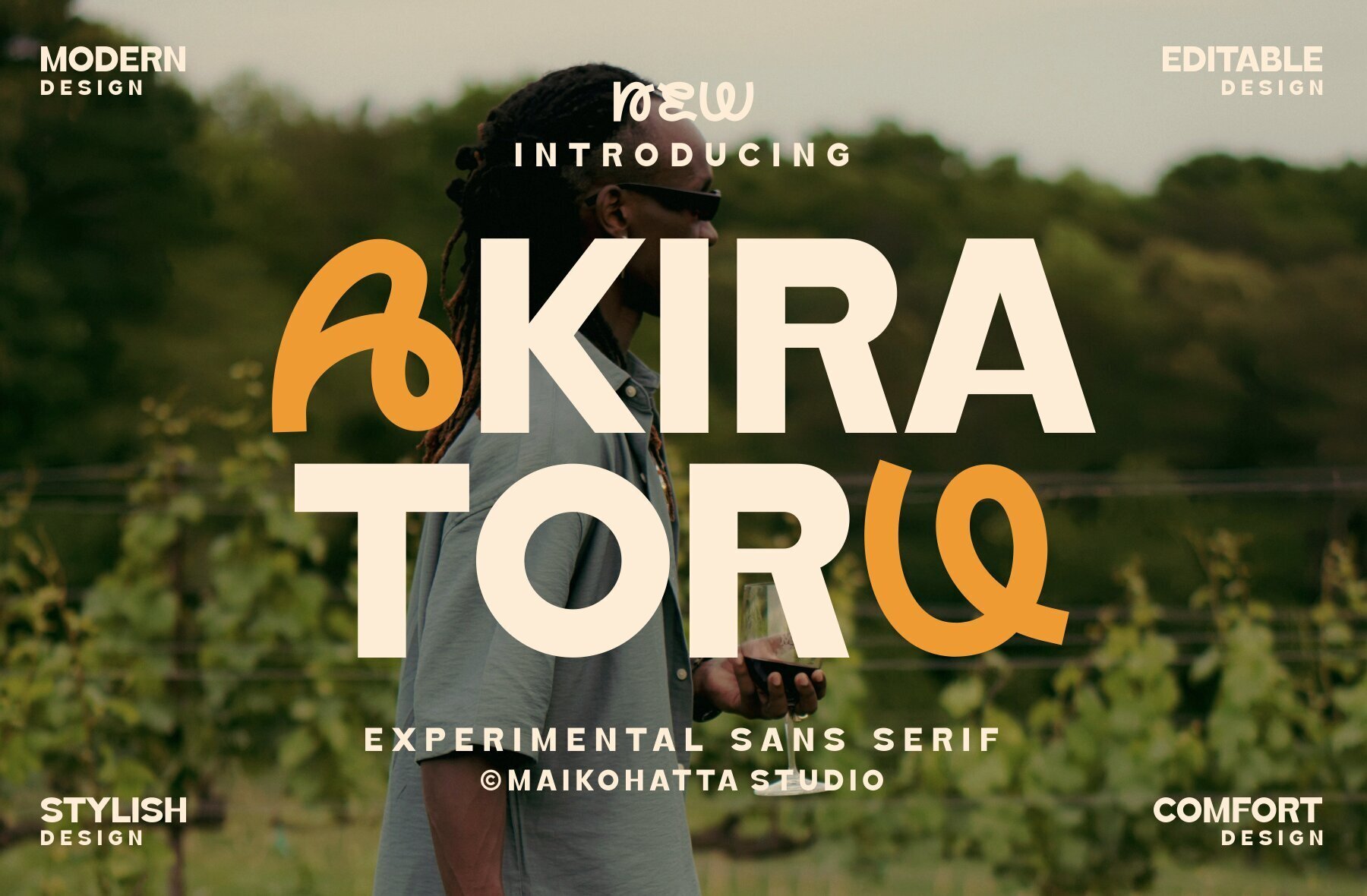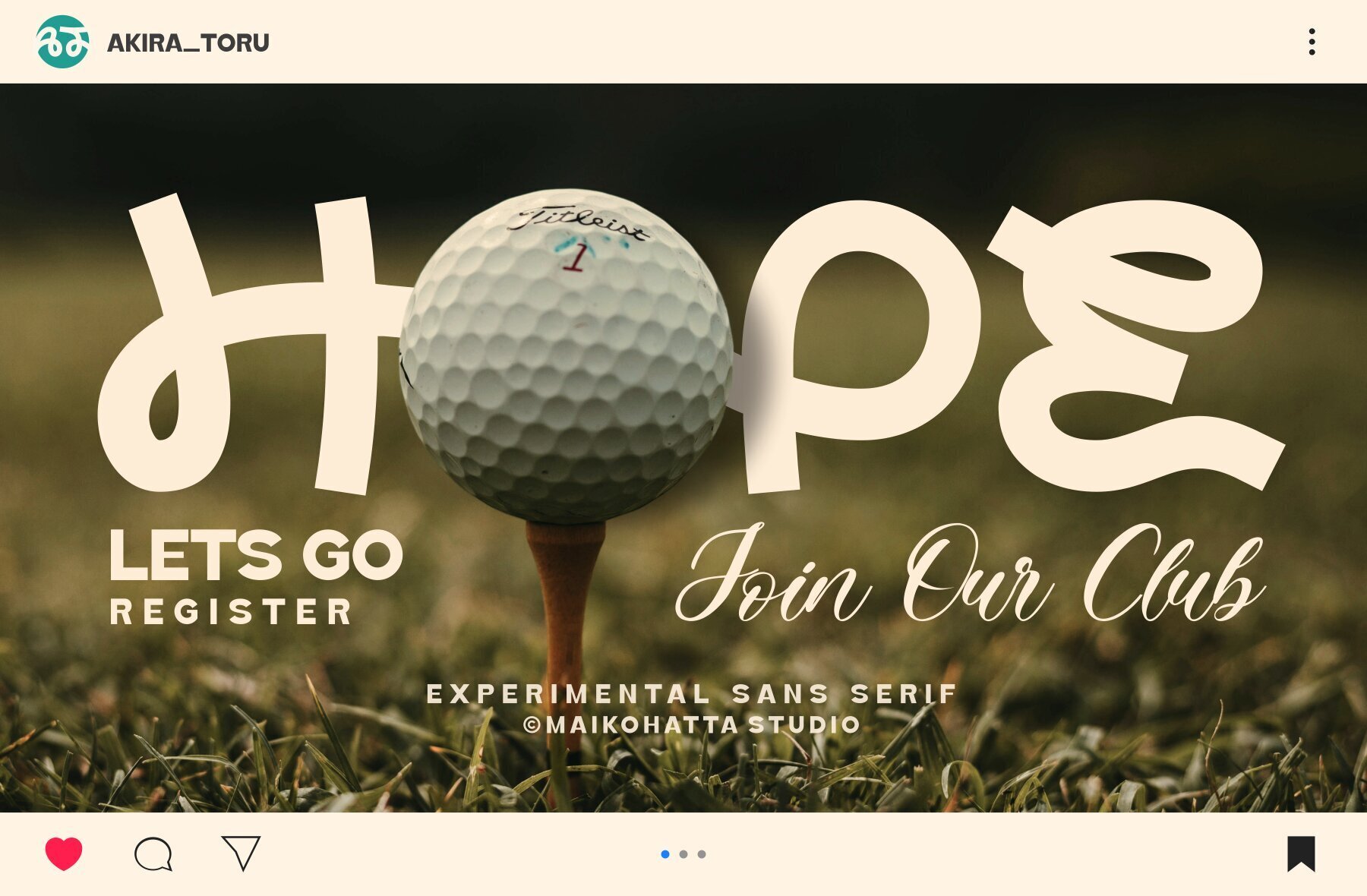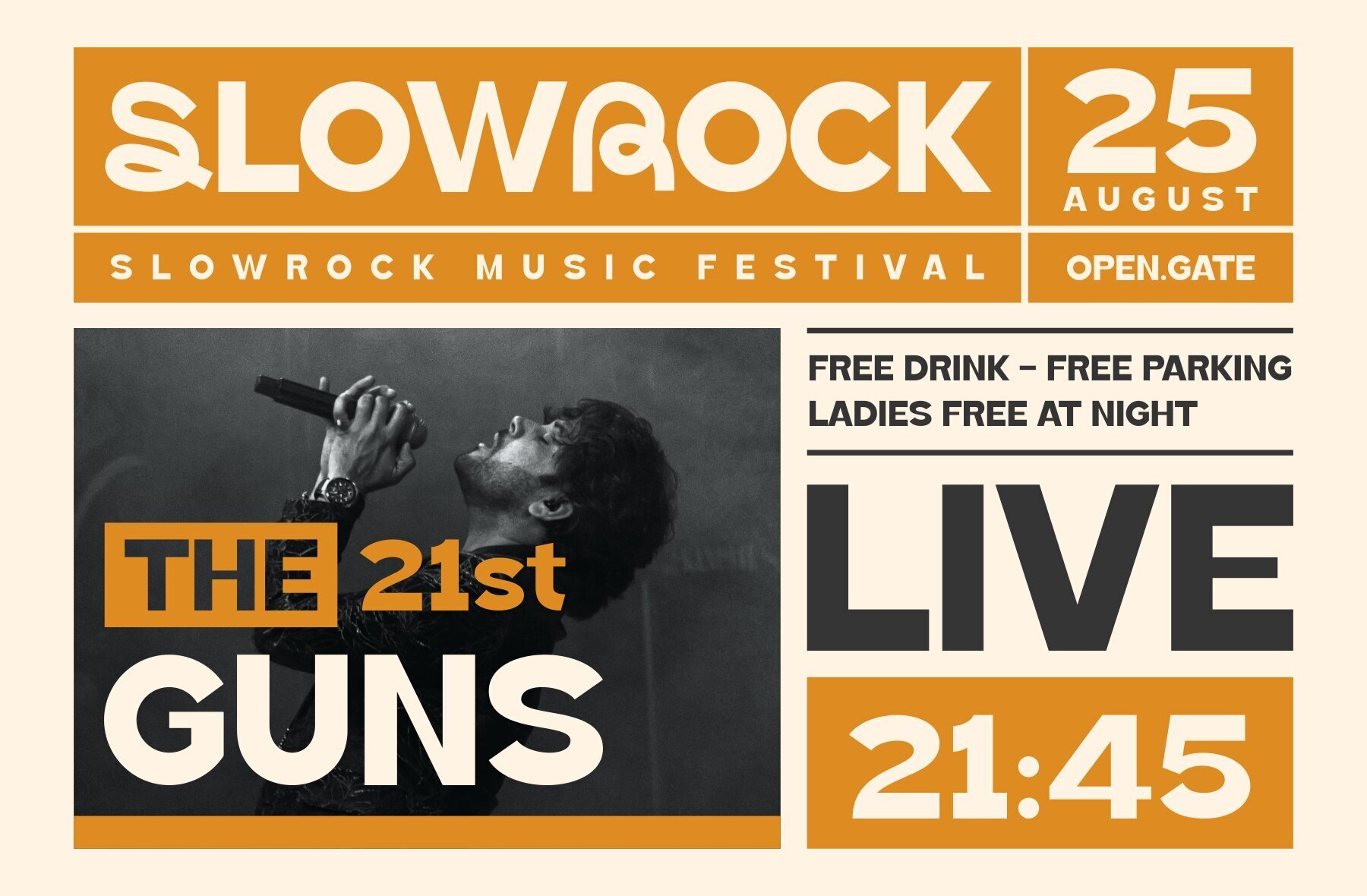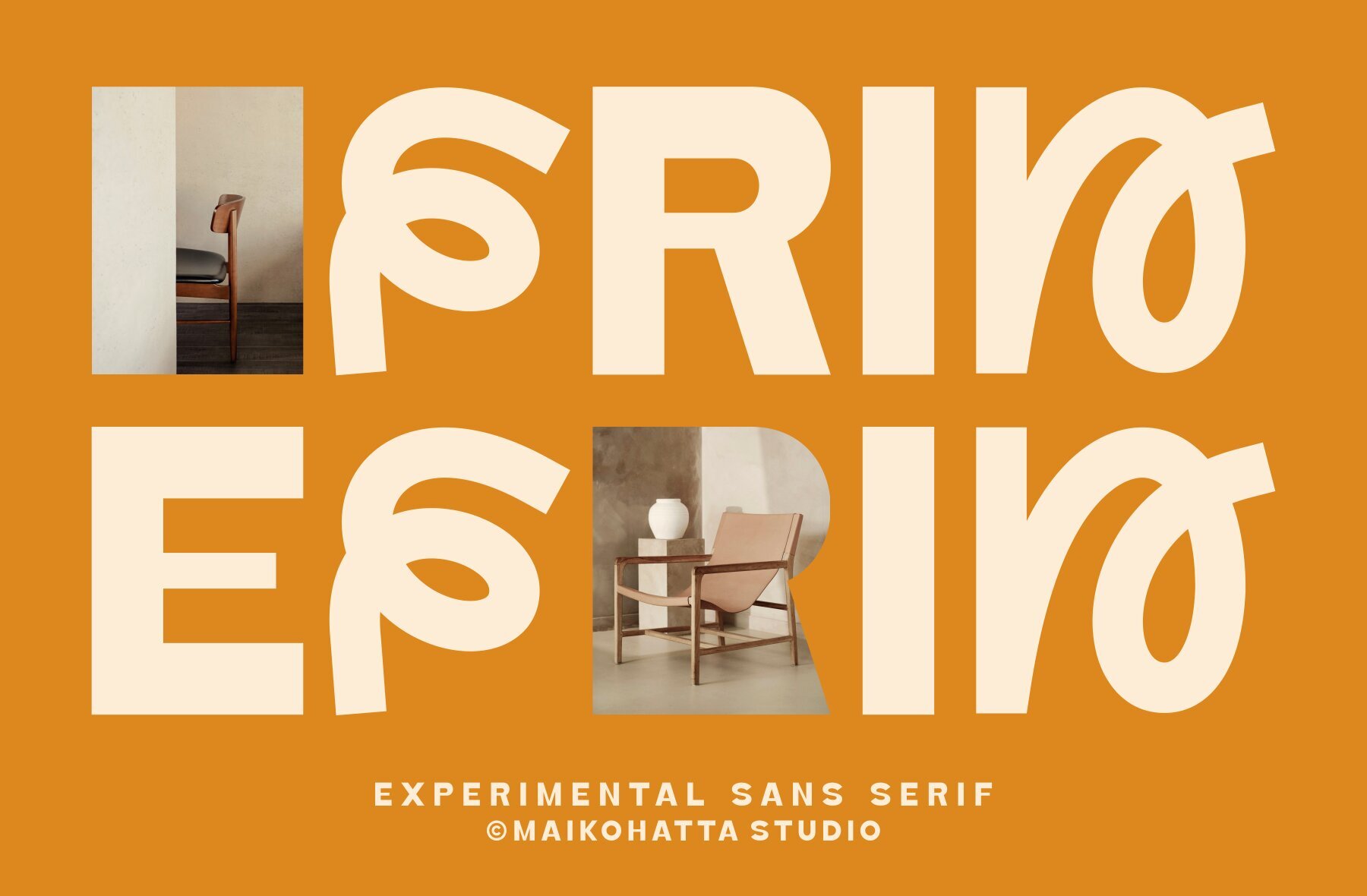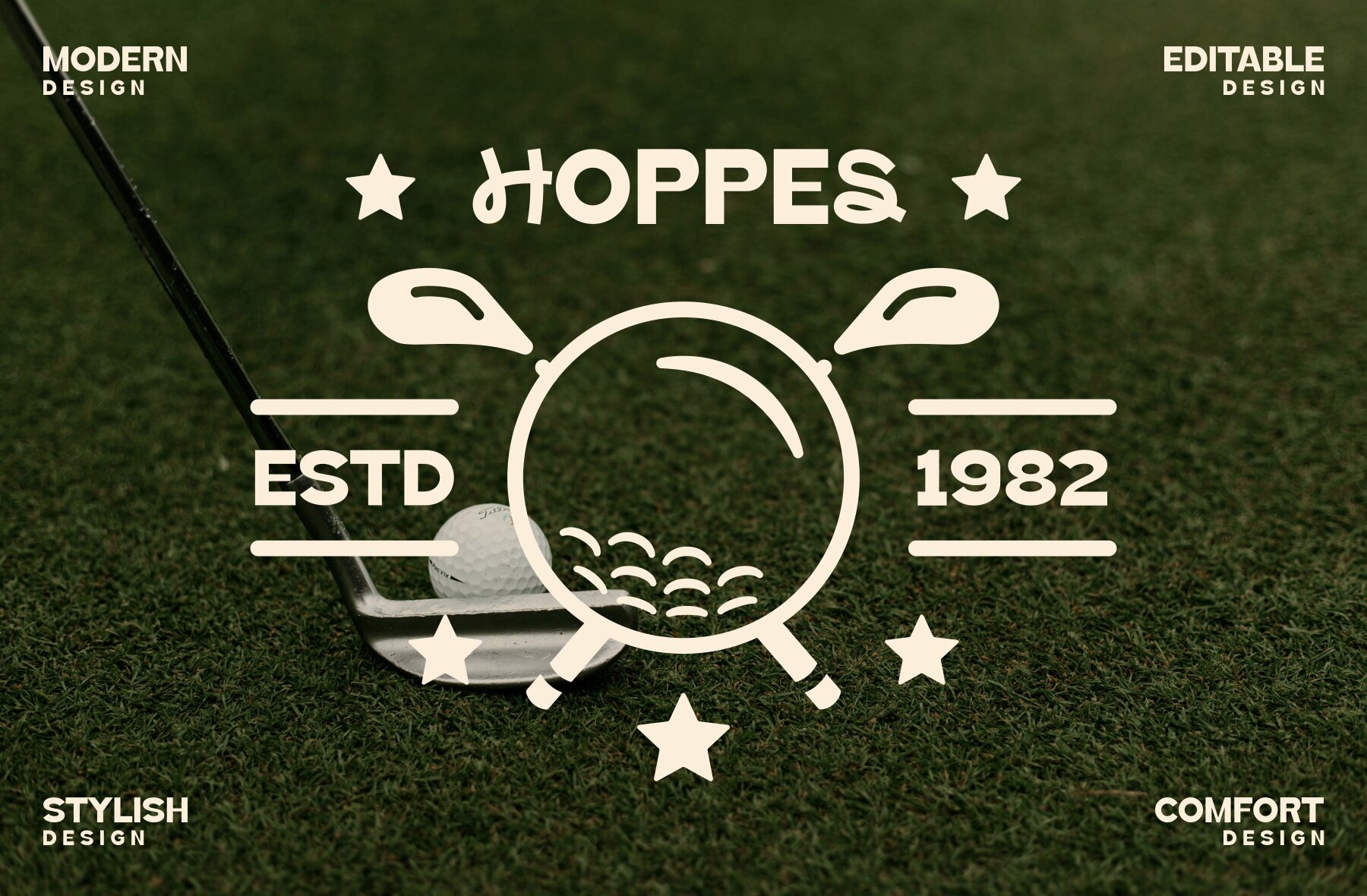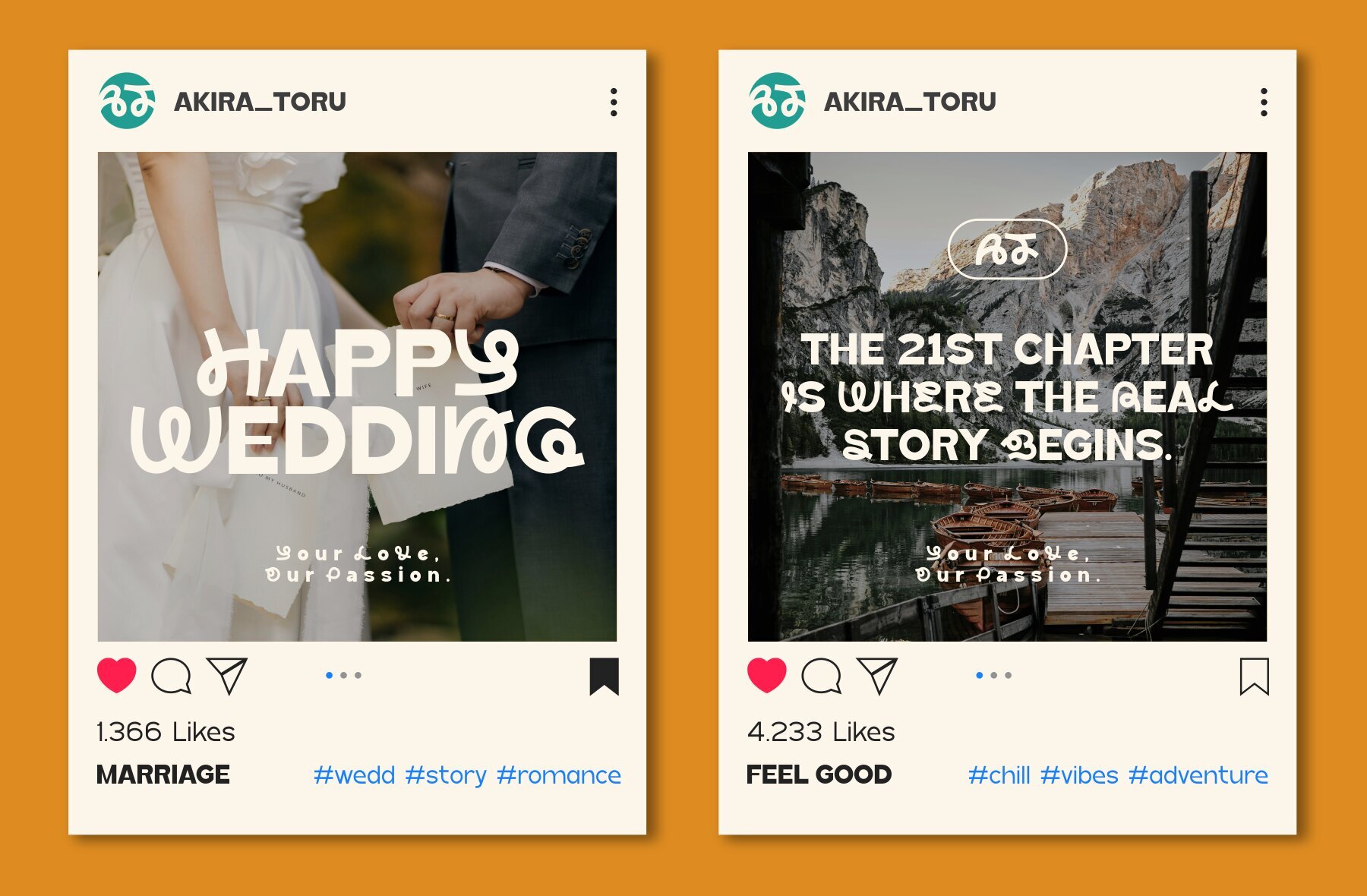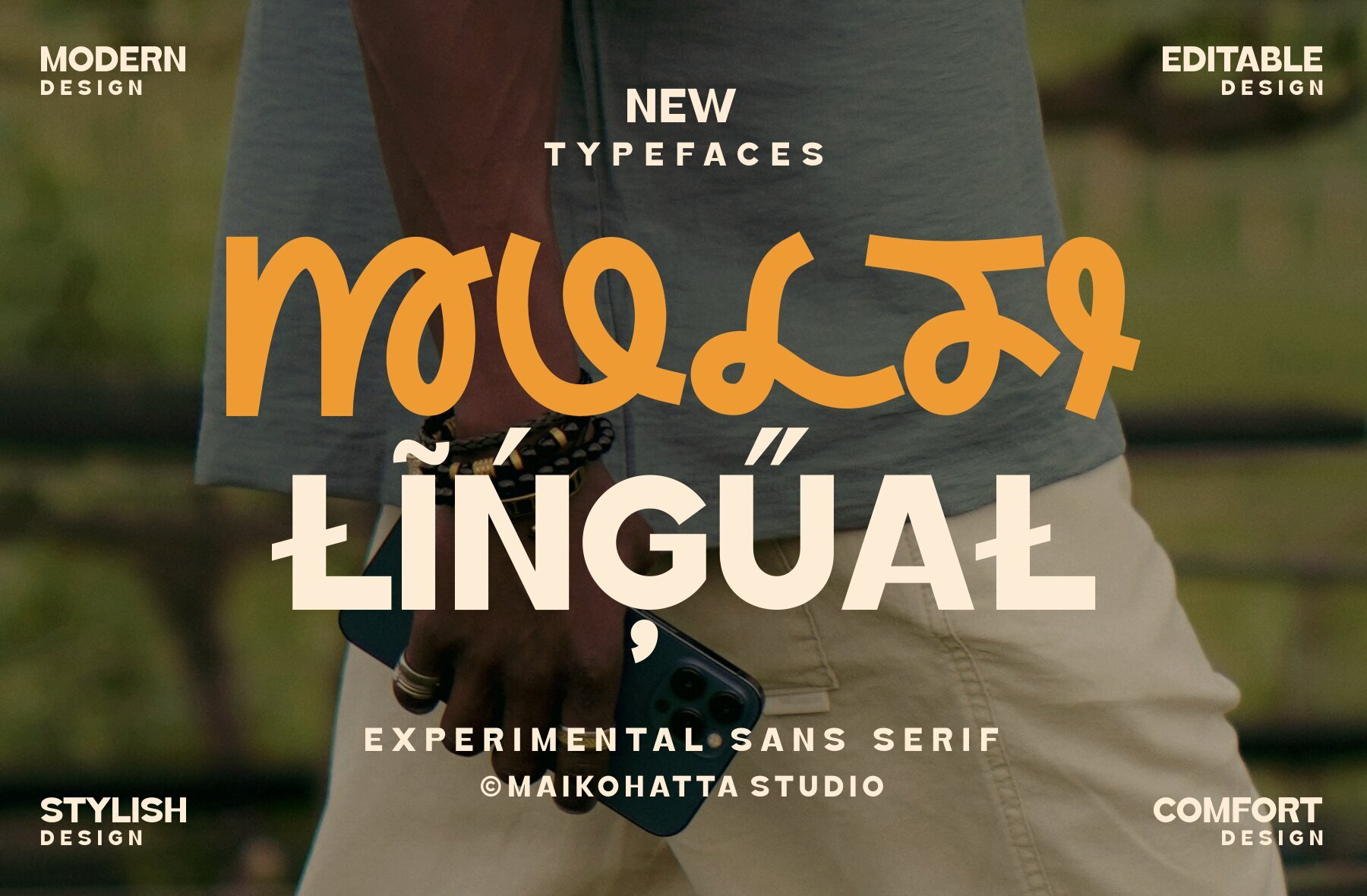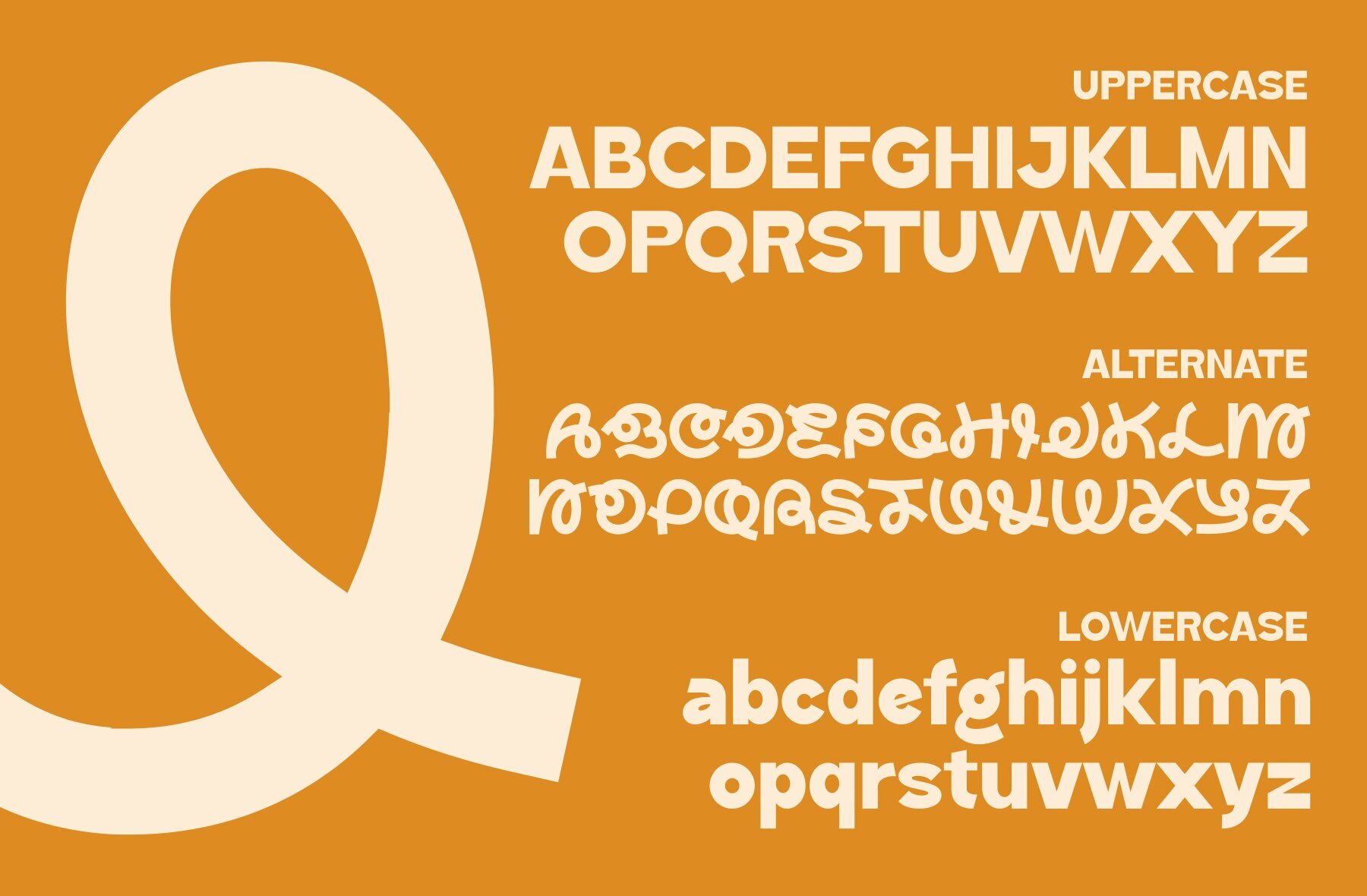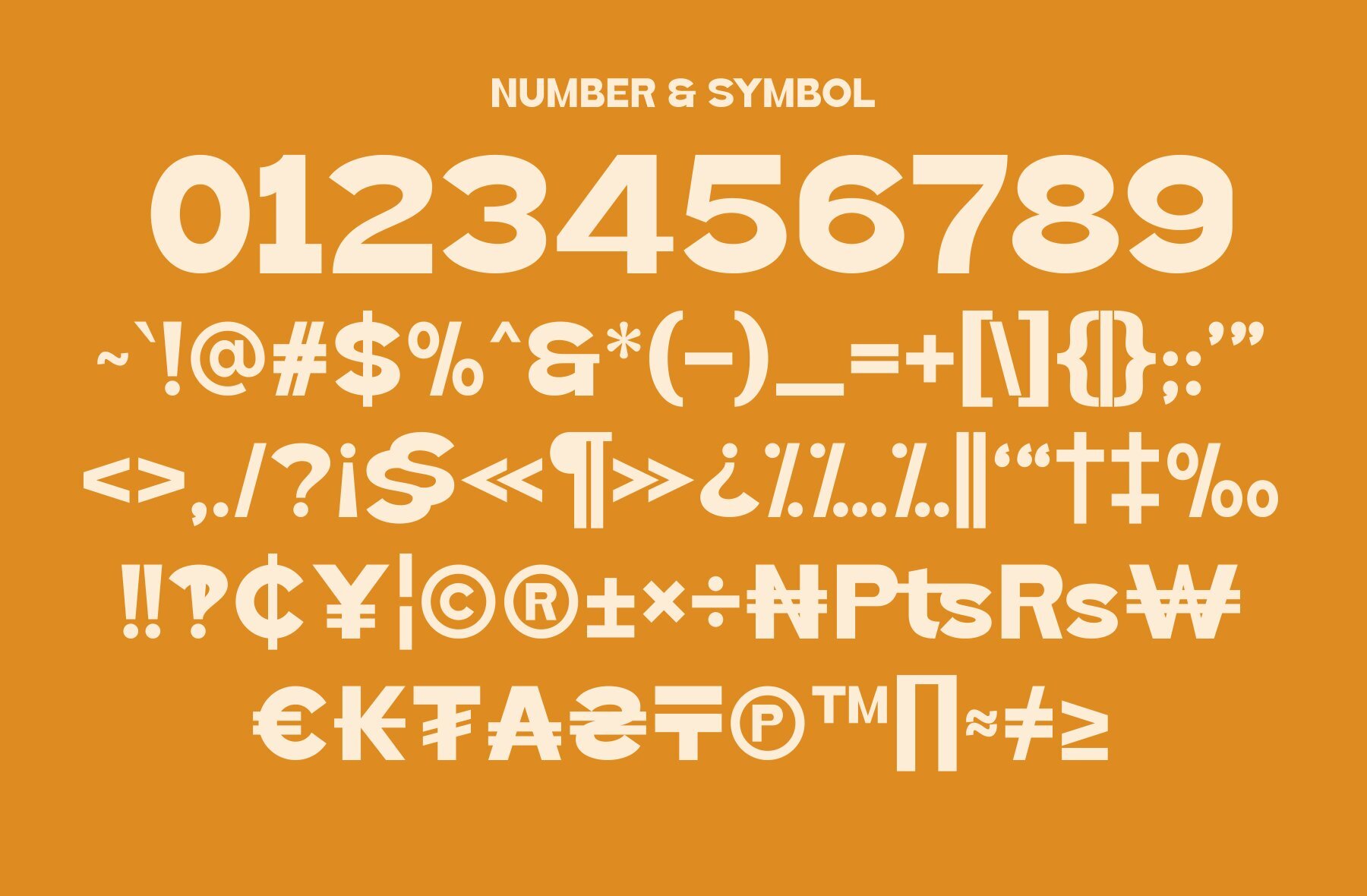
Akira Toru Font
AKIRA TORU
Akira Toru is a versatile sans serif display font designed to enhance a wide range of design projects. Its clean and professional appearance makes it suitable for modern typography, providing a contemporary touch to your designs. Akira Toru's simplicity and visual appeal make it an ideal choice for graphic designers looking to add a polished look to their work.
Features include a full set of uppercase and lowercase characters, multilingual support, ligatures, and alternates. These elements ensure flexibility across various design contexts, allowing for creativity in branding, promotional materials, and more. Akira Toru's design ensures that your projects maintain a sophisticated and clear aesthetic.